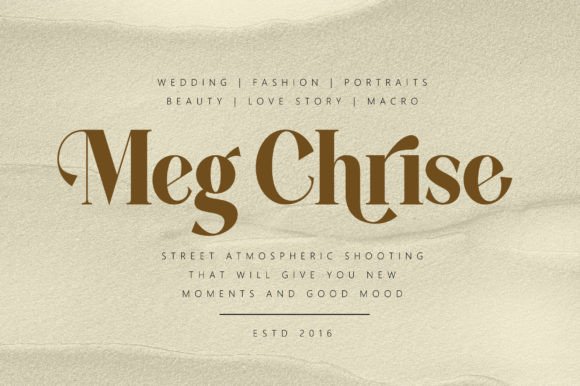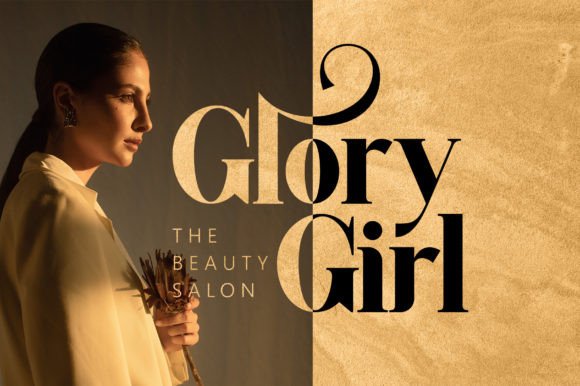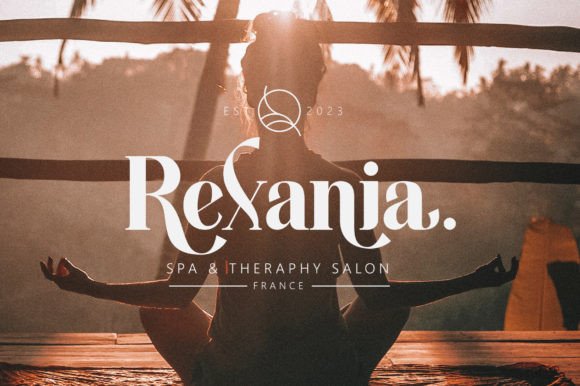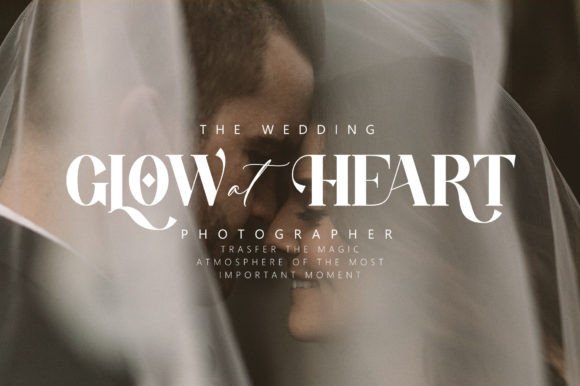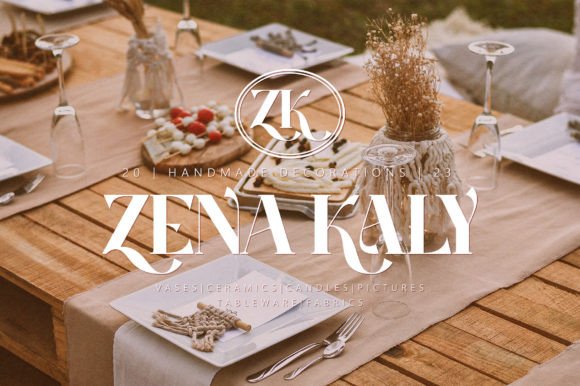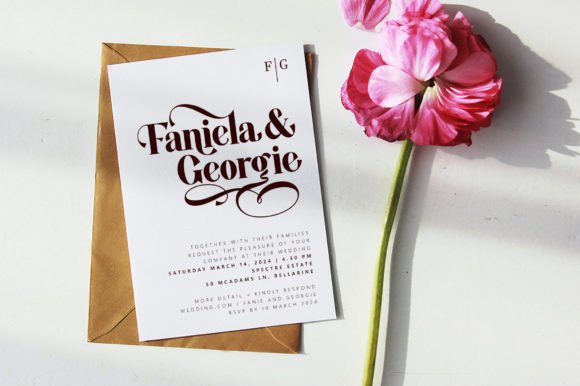
The Ardhelia Font: A Timeless Elegance for Your Creative Projects
I’ll never forget the time I was working on a wedding invitation design project, and I just couldn’t seem to find the perfect font. My client wanted something elegant, sophisticated, and romantic, but not too over-the-top. I scoured the internet, tried out dozens of fonts, and still, nothing seemed quite right. That was until I stumbled upon the Ardhelia font. ✨
Ardhelia is a beautiful and elegant serif font that has become a staple in my design toolkit. Its classic lines, refined features, and versatility make it perfect for a wide range of projects, from branding and wedding invitations to greeting cards, posters, and more.
An Honest Review of Ardhelia
What I Love About Ardhelia
- ✨ Elegant and refined design that’s perfect for high-end projects
- ✅ Wide range of OpenType features, including glyphs and stylistic alternates
- ✅ Works beautifully in both digital and print formats
While Ardhelia is an amazing font, it’s not perfect. Here are a few things to keep in mind:
- ⚠️ Some users have reported issues with kerning, particularly with certain character combinations. However, this can usually be easily adjusted in most design software.
- 🤔 While Ardhelia has a wide range of OpenType features, some users may find the glyph panel overwhelming if they’re not familiar with using OpenType features.
The Story Behind Ardhelia
Ardhelia was designed by a team of typographers who wanted to create a font that was both elegant and refined. The font is named after a fictional character who embodies the qualities of sophistication and poise. The designers drew inspiration from classic serif fonts, but added their own unique twist to create a truly unique and versatile font.
Q: What is Ardhelia font?
A: Ardhelia is a beautiful and elegant serif font that’s perfect for a wide range of creative projects.
Q: Is Ardhelia easy to read?
A: Yes, Ardhelia is highly legible, even at small font sizes, making it perfect for body text and long-form content.